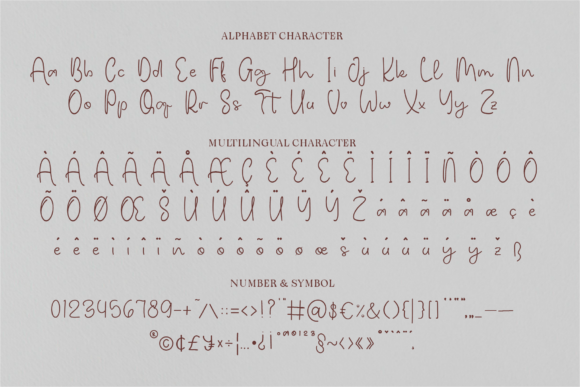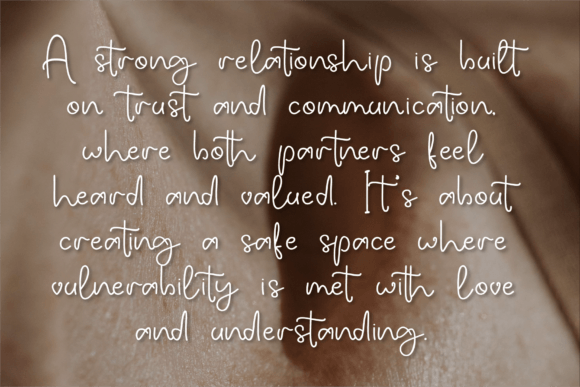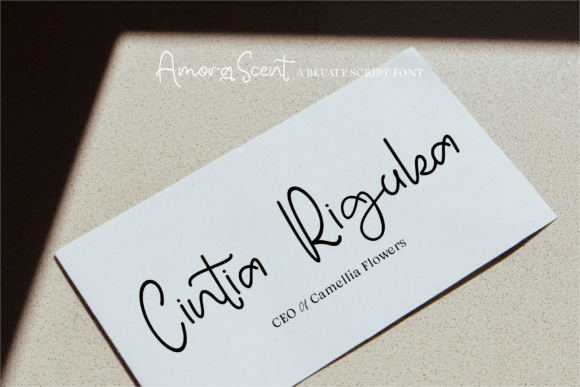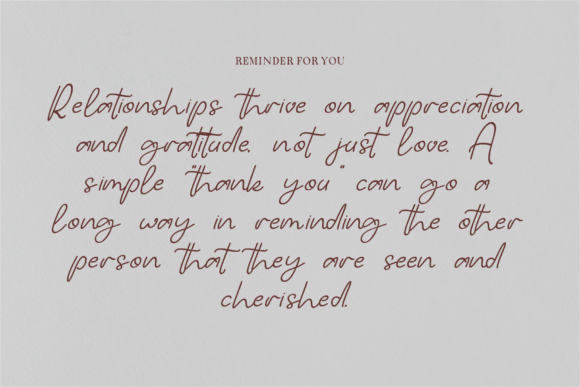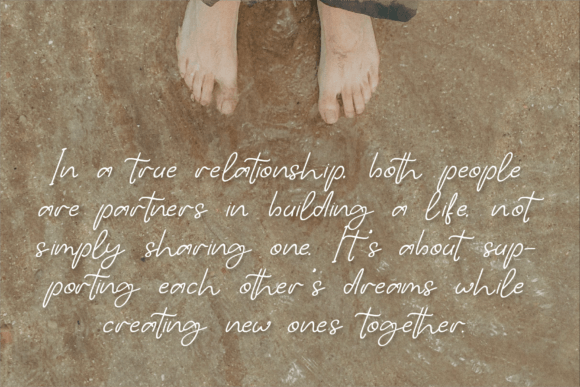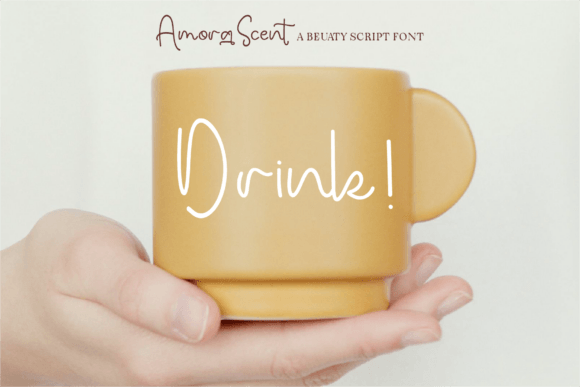
The Elusive Perfect Font: My Journey with Amora Scent
Ah, the quest for the perfect font. We’ve all been there – scrolling through endless font libraries, trying to find that one font that speaks to our design soul. I recall working on a wedding invitation project, determined to create something truly special. My client wanted a font that exuded elegance and sophistication, but I was coming up blank. That’s when I stumbled upon Amora Scent, a beauty-inspired script font that stole my heart.
First Impressions: A Love Affair with Amora Scent
As soon as I laid eyes on Amora Scent, I knew I had found the one. This gorgeous script font embodies grace and elegance in every stroke, making it perfect for personal branding, wedding designs, beauty product packaging, and heartfelt invitations. Its fluid, interconnected letters radiate charm and sophistication, elevating any project to new heights.
- ✨ Elegant and sophisticated design that’s perfect for high-end projects
- ✅ Highly readable, even at smaller font sizes
- 💫 Fluid, interconnected letters that create a beautiful flow
- 🎨 Versatile and timeless, suitable for a wide range of design applications
- 🤔 Some letters may require manual kerning for optimal spacing
- Experiment with different OpenType features, such as stylistic alternates and glyphs
The Story Behind Amora Scent: Designer Inspiration
Amora Scent was designed with a passion for beauty and elegance. The font’s creator aimed to craft a script font that would evoke the charm and sophistication of high-end beauty brands. With its fluid, interconnected letters, Amora Scent is the perfect embodiment of this vision.
Q: What type of projects is Amora Scent best suited for?
A: Amora Scent is perfect for personal branding, wedding designs, beauty product packaging, and heartfelt invitations.
Q: Does Amora Scent support OpenType features?
A: Yes, Amora Scent supports various OpenType features, including stylistic alternates and glyphs.
Q: Can I use Amora Scent in my digital designs?
A: Absolutely! Amora Scent is versatile and can be used in both print and digital designs.